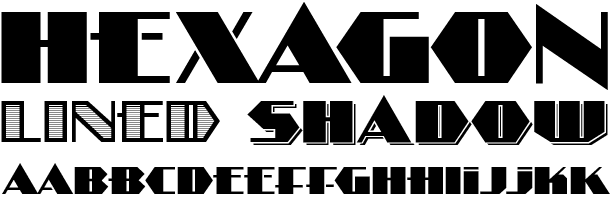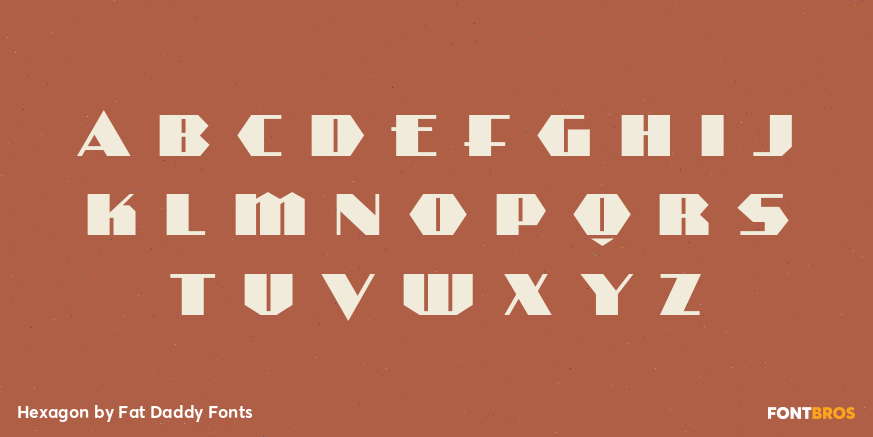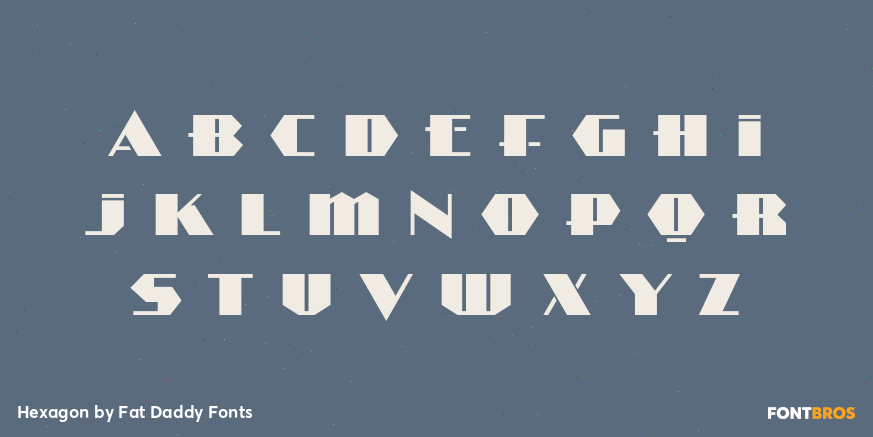
Hexagon
Font Family by Fat Daddy Fonts
Inspired by an old Alf Becker letter style, FDF Hexagon is an unusual, bold, art deco style font. Font set includes 3 versions.